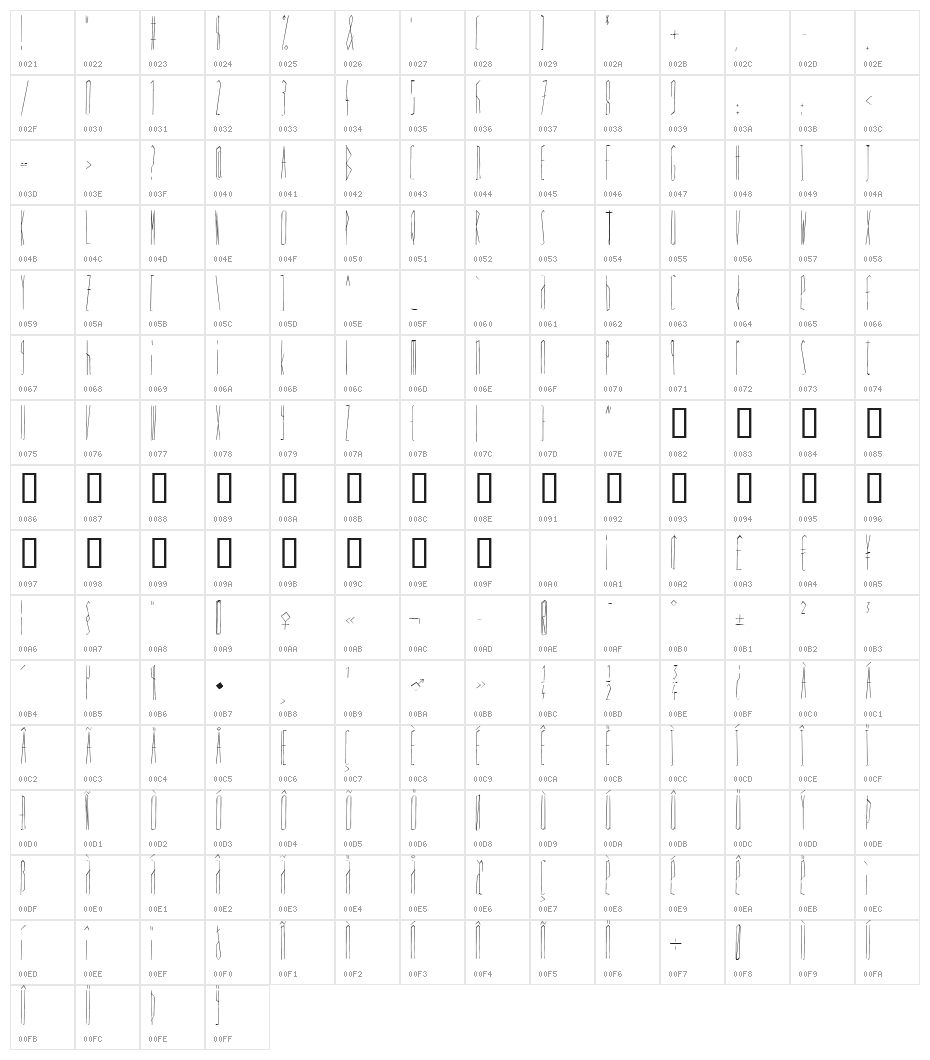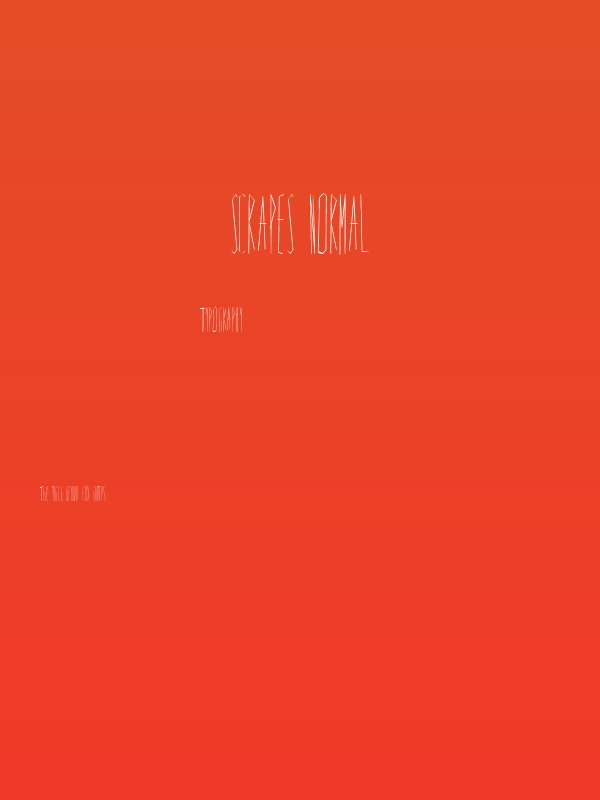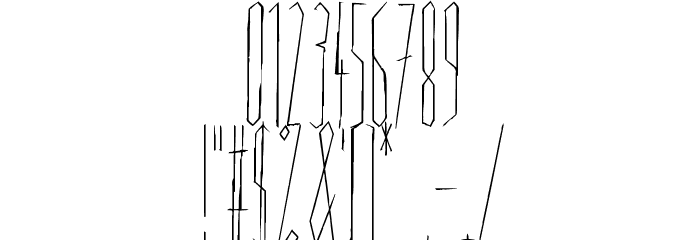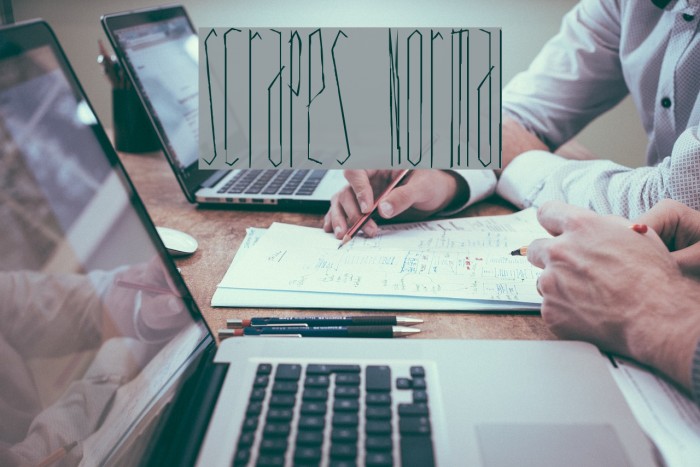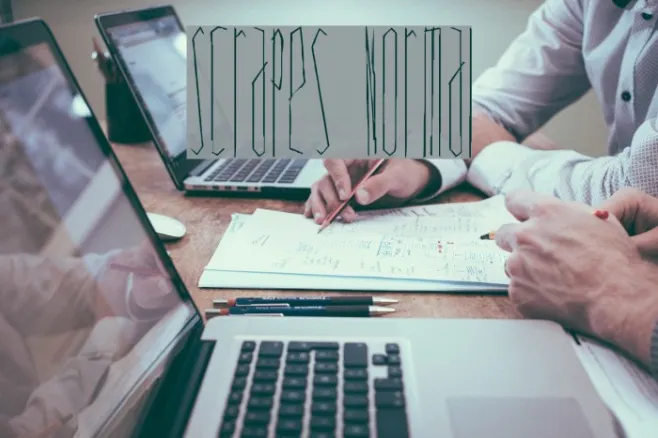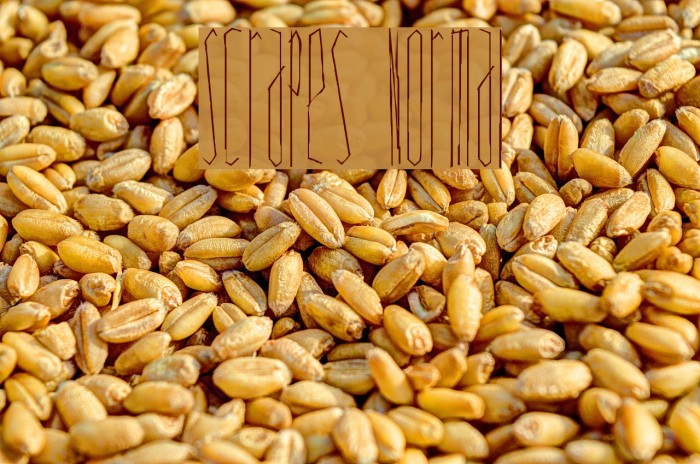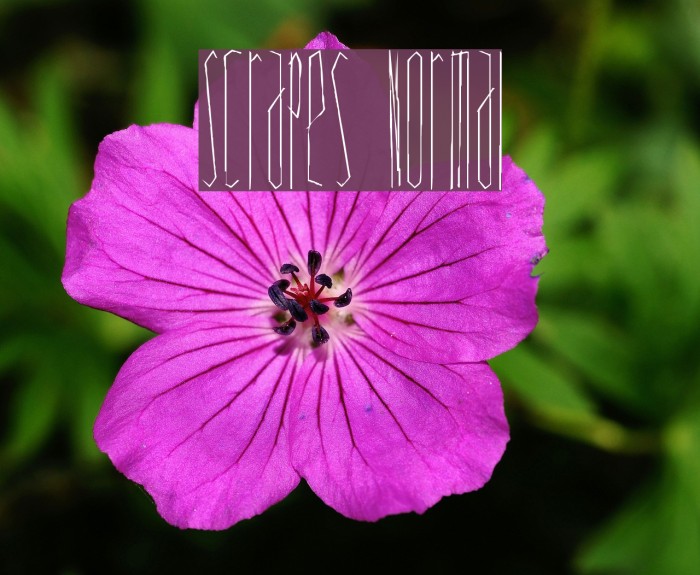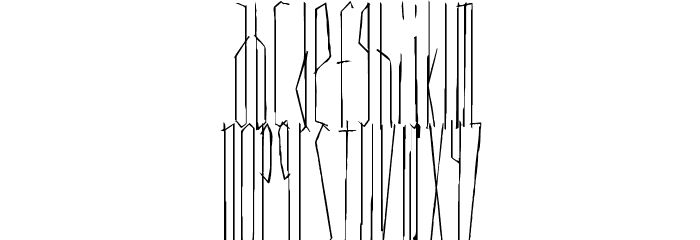
Scrapes Normal Font
Scrapes Normal Description
This font features a highly unique and artistic design, characterized by its elongated and narrow letterforms. The strokes are thin and sharp, giving it a distinctively edgy and modern appearance. The uppercase and lowercase letters maintain a consistent height, contributing to a uniform look across the alphabet. Numbers and special characters follow the same stylistic approach, ensuring a cohesive visual identity. The font's overall aesthetic is avant-garde, making it suitable for projects that require a bold and unconventional statement.
| Use Case | Logos, Headlines, Artistic displays |
| Proposed Projects | Ideal for album covers, fashion branding, avant-garde posters, and artistic projects. |